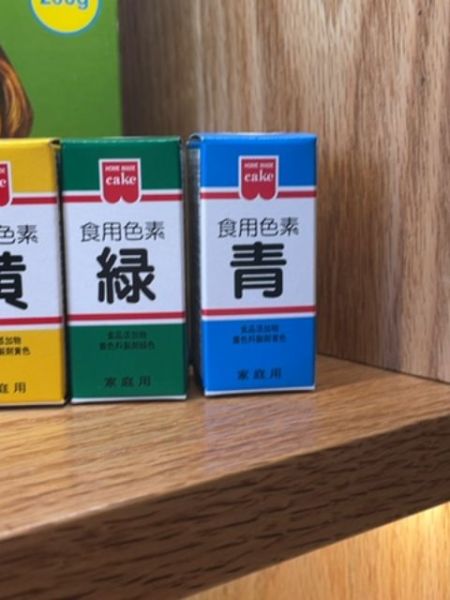
Home Chef Cake Food Coloring
A food coloring product used for adding vibrant colors to culinary creations such as cakes, cookies, and other desserts.
The typography on the packaging combines a sans-serif font for the brand name that conveys a modern and easy-to-read appearance with traditional Japanese characters that represent the product name. The mix of cultural typography reflects the product’s origin, maintaining a balance between modernity and tradition.
The packaging features vibrant color blocks that clearly denote the color of the dye inside. Each box has a simple, modern design with a primary color background and white area for text, giving it a clean and direct appeal.